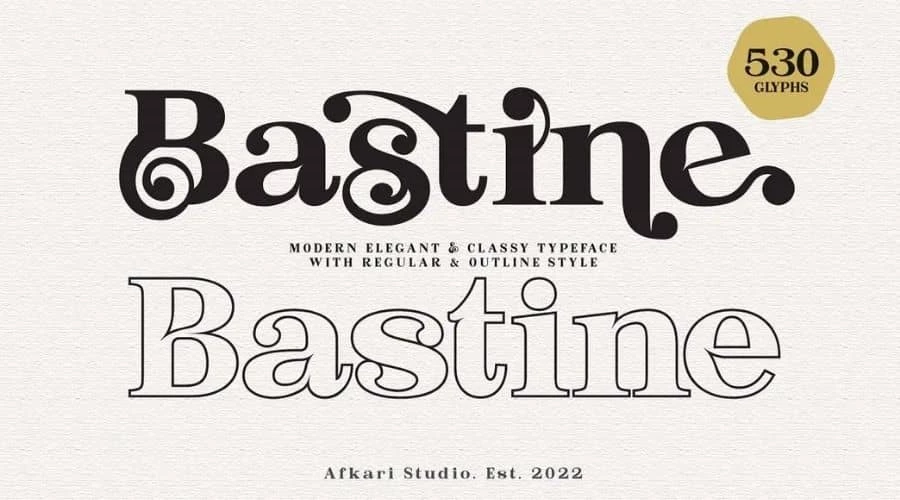
Bastine Font is a lovely serif font designed by Afkari Studio. A contemporary and stylish serif, it has a variety of alternate glyphs, ligatures, and styles to choose from, including normal and outline versions. Whether you’re working on a logo, a product package, a wedding invitation, a magazine cover, or just a text overlay for your designs, the beautiful serif font Bastine is ideal.
This font exudes a sense of style and modernity. Packaging, apparel, logos, and even language might include it. Incorporate it into your website or animated films with titles, it’s a terrific idea. It has been widely adopted by designers for use in their personal and professional work as well as educational materials.